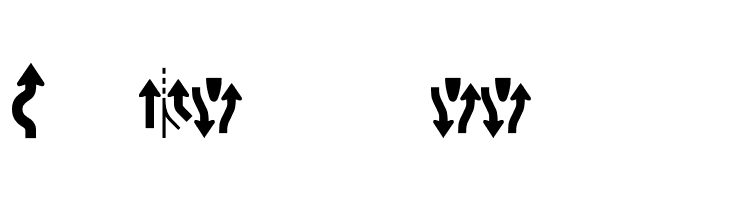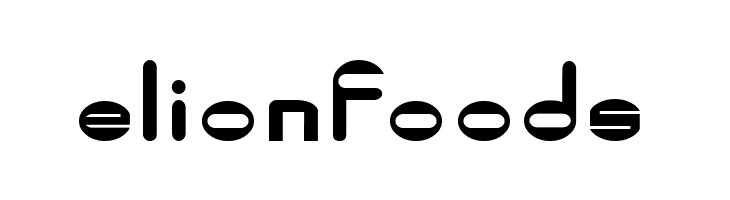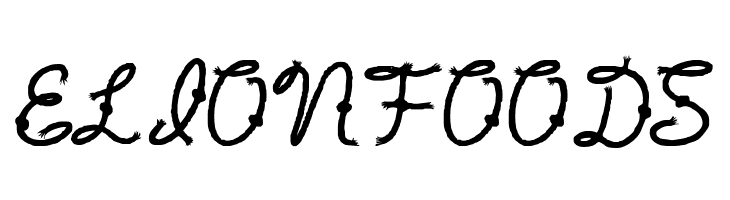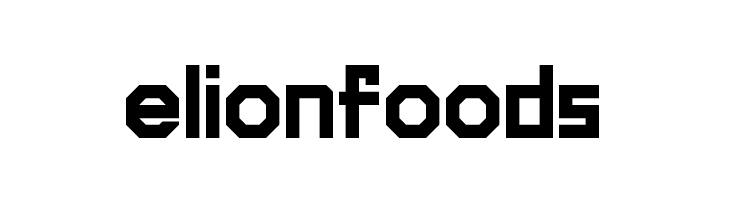
( ATRAX - antraxja-fonts.iweb.pl/en/ )
A bold, modern font with geometric influences and high contrast.
( Anke-Art - www.anke-art.de/ )
A bold, geometric sans-serif font ideal for signage and high-visibility applications.
( Apostrophic Lab - pedroreina.net/apostrophiclab/ )
A classic serif font with an elegant italic slant and medium contrast.
( BombHaus Digital Foundry )
A futuristic, geometric font with rounded edges and consistent stroke thickness.
( Character )
A playful, rope-themed decorative font with a textured, dynamic appearance.
( Chay's Graphic Design Studio - web.archive.org/web/20010405045049/grendels.8k.com/pages/fonts.html )
A decorative icon font with retro-futuristic vehicle and navigation illustrations.
( Chung-deh Tien - www.redbubble.com/people/kaiju/portfolio )
A classic serif font with elegant, elongated strokes and subtle curves.
( Josen Tan - www.roblox.com )
( Megami Studios - incstonedesign.com/ )
A modern, italicized hollow font with smooth curves and rounded edges.
( Michael D. Adams - www.triskele.com/roadgeek-fonts/ )
Bold, geometric arrows for signage and wayfinding.